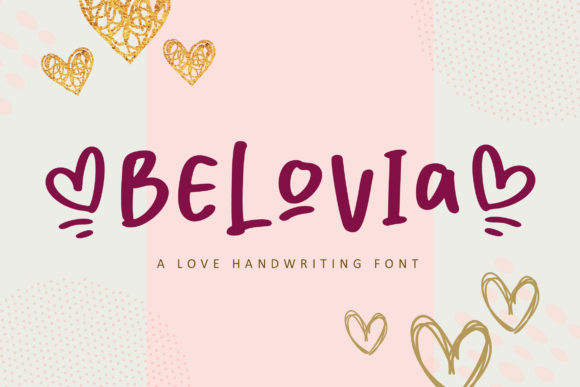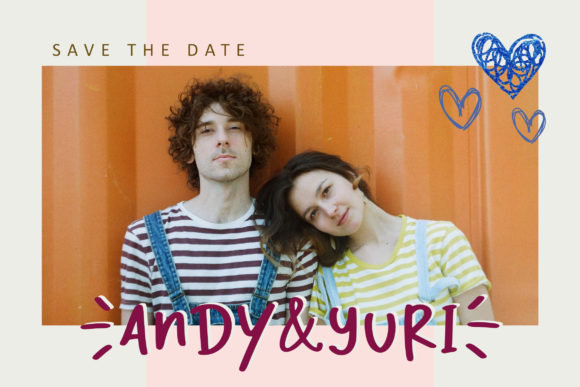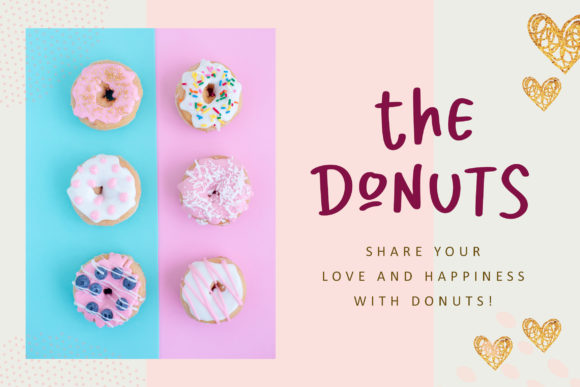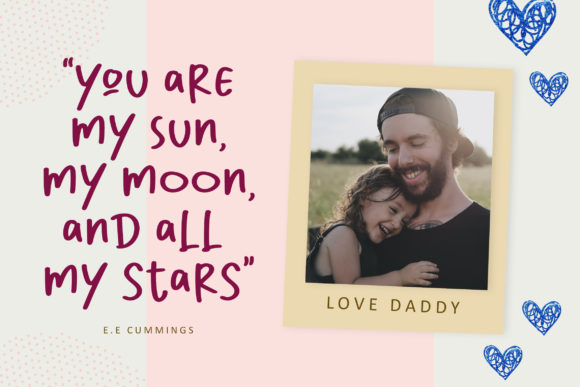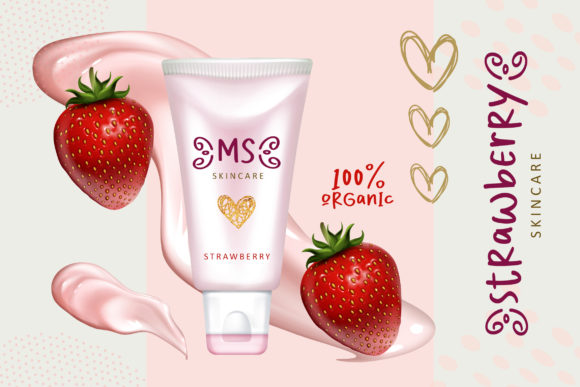
About Belovia Font
Introducing “Belovia” – an organic handwritten font that brings a touch of authenticity to your designs. With its modern simplicity and organic charm, Belovia is the perfect choice for branding, signatures, wedding invitations, and various other creative needs.
Belovia captures the essence of handwritten beauty with its natural and flowing strokes. The organic quality of this font adds a sense of warmth and genuineness to your projects, creating a personal connection with your audience.
With its modern and clean aesthetic, Belovia offers a timeless appeal that fits seamlessly into contemporary design trends. Its simplicity allows the focus to remain on the content while still adding a unique and personalized touch.
The versatility of Belovia makes it suitable for a wide range of applications. Whether you’re creating a logo for a brand that values authenticity, designing a signature that reflects your individuality, or crafting wedding invitations that evoke a sense of intimacy and elegance, Belovia delivers with its versatile style.
Belovia’s simplicity also makes it highly legible, ensuring that your message is effectively communicated to your audience. Whether in print or digital formats, this font maintains its clarity and readability, making it a practical choice for a variety of design projects.
By using Belovia, you can add a personal and human touch to your designs. Its authentic and organic appearance sets your work apart and creates a genuine connection with your viewers.
In conclusion, Belovia is an organic handwritten font that combines modern simplicity with an authentic feel. Whether you need it for branding, signatures, wedding invitations, or other creative endeavors, Belovia brings a touch of genuine beauty to your designs. Embrace the simplicity and authenticity of Belovia, and let it elevate your projects with its natural charm.